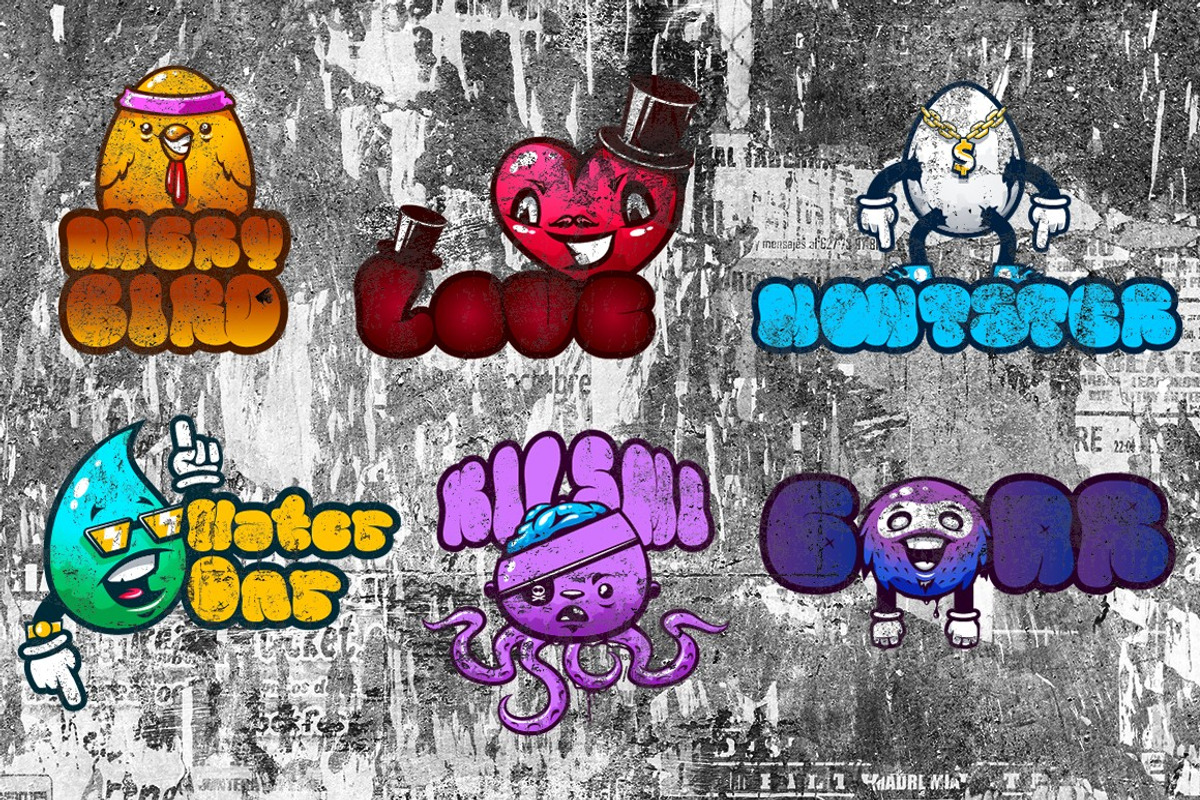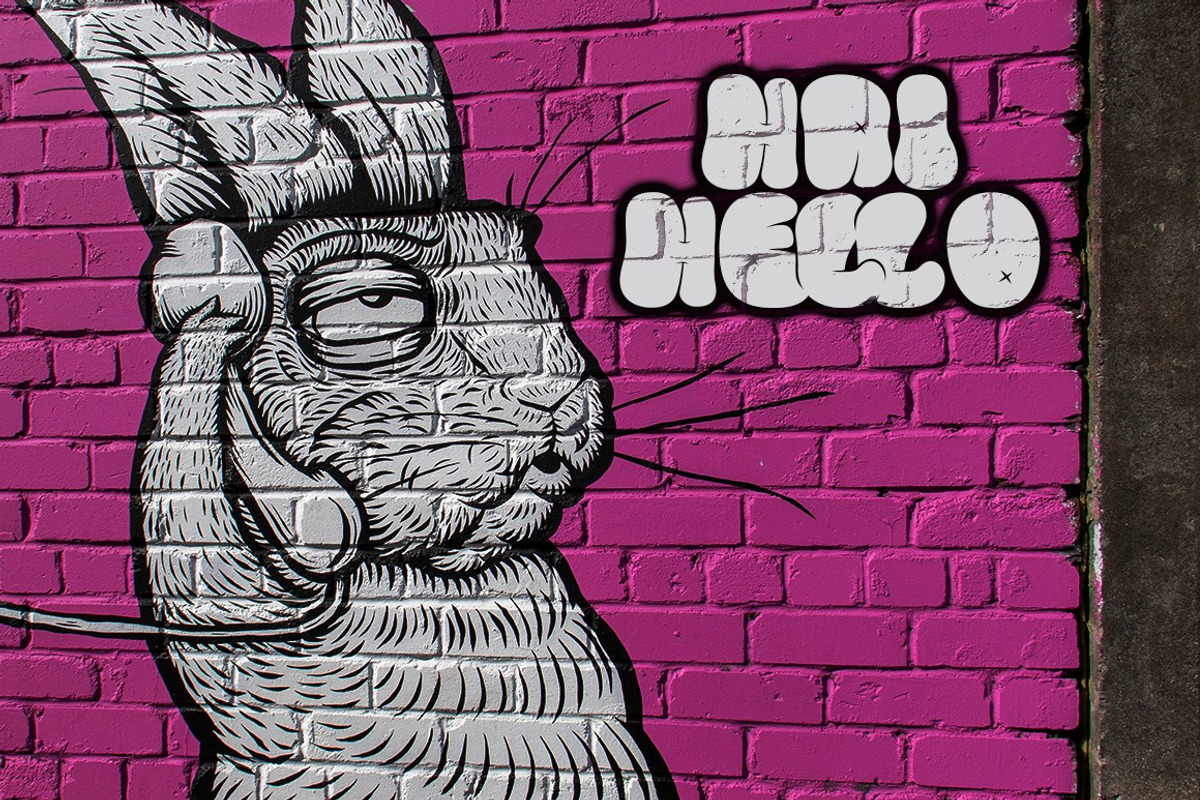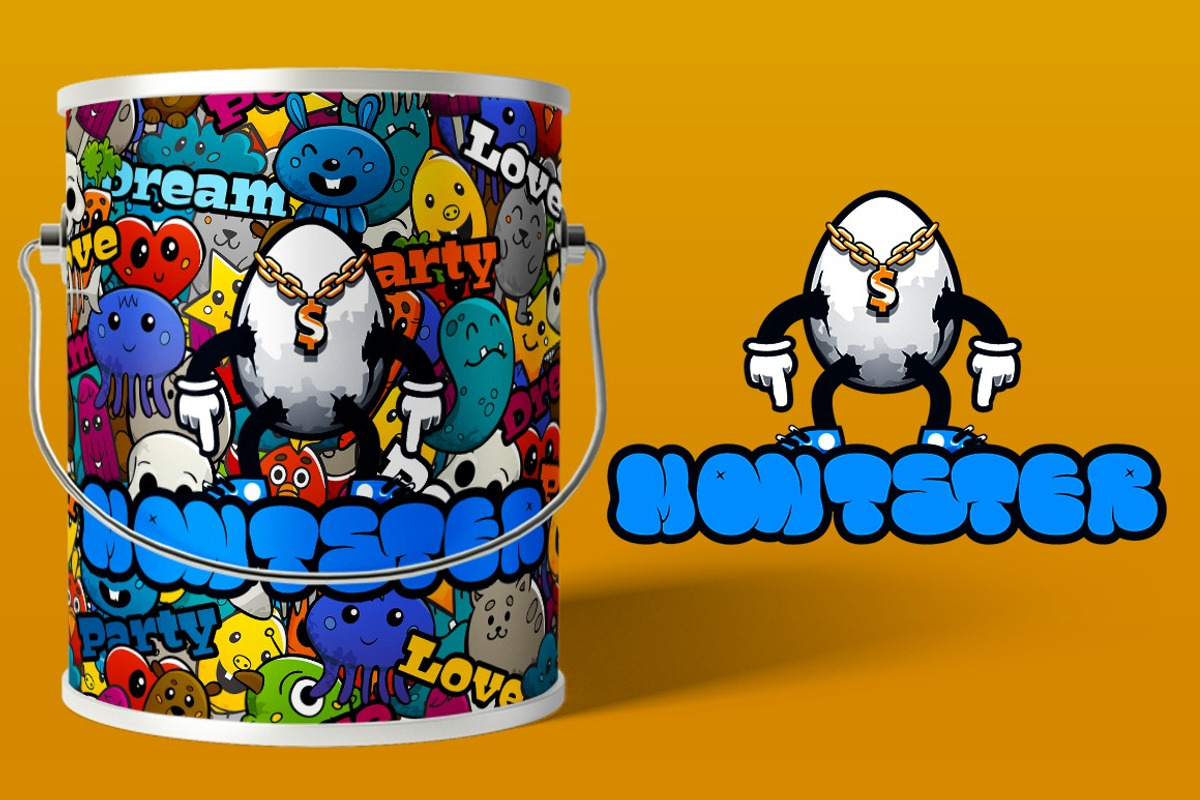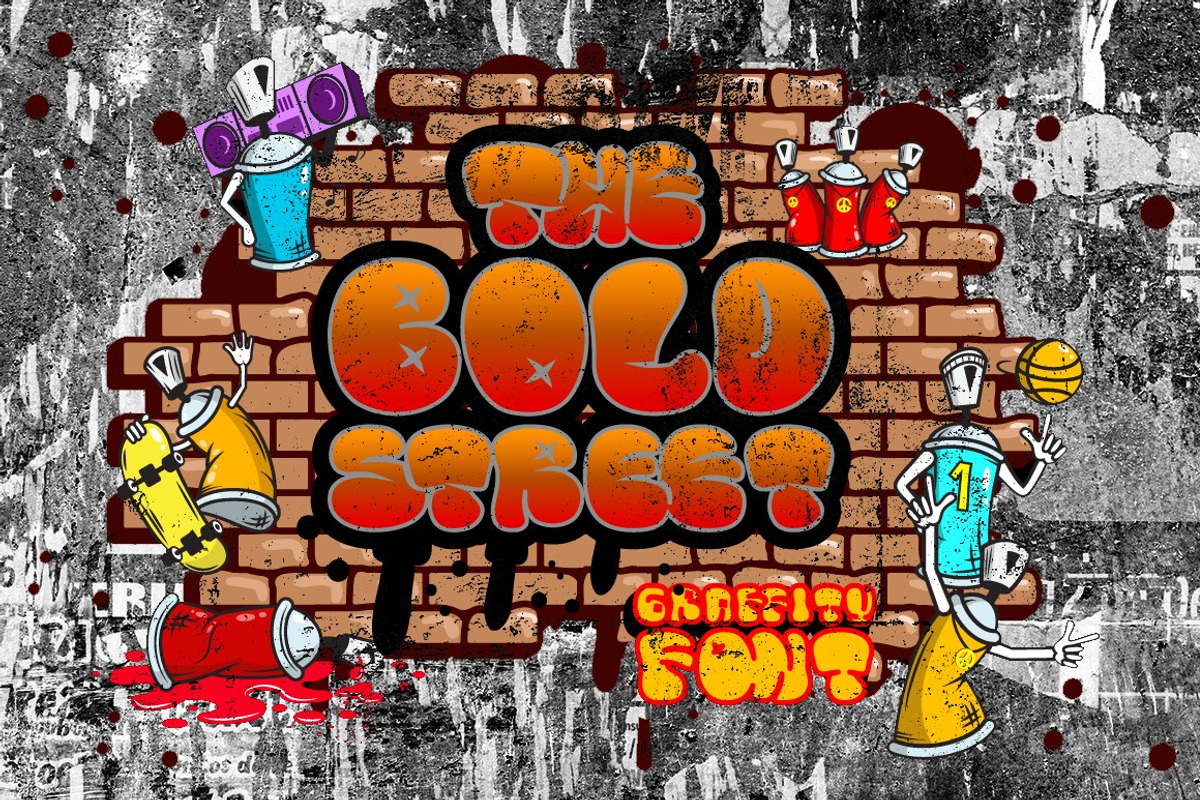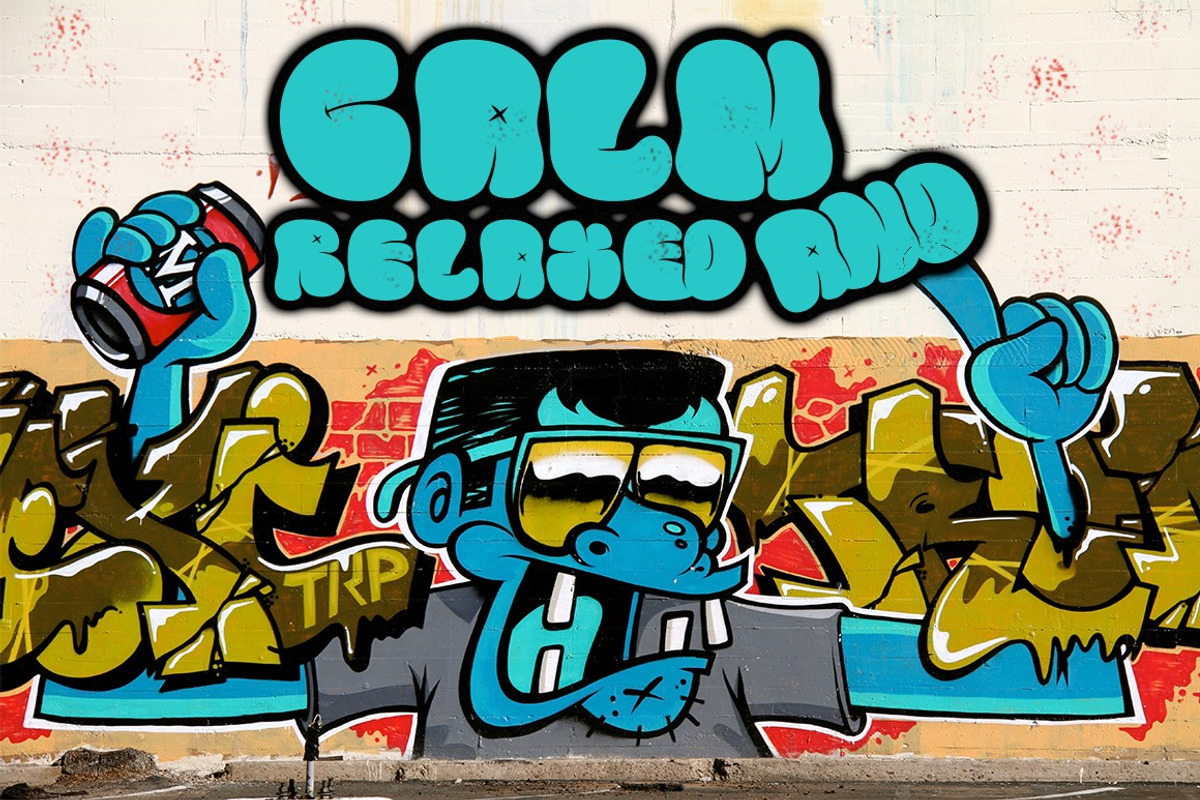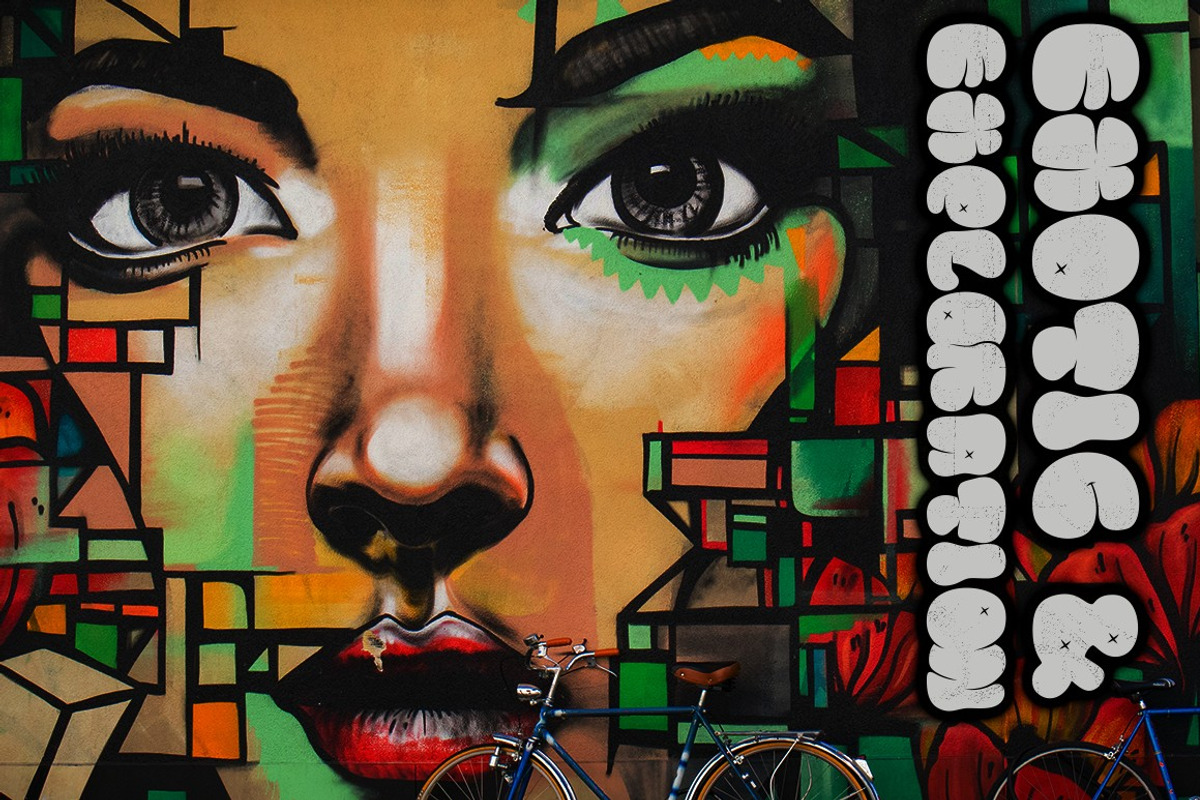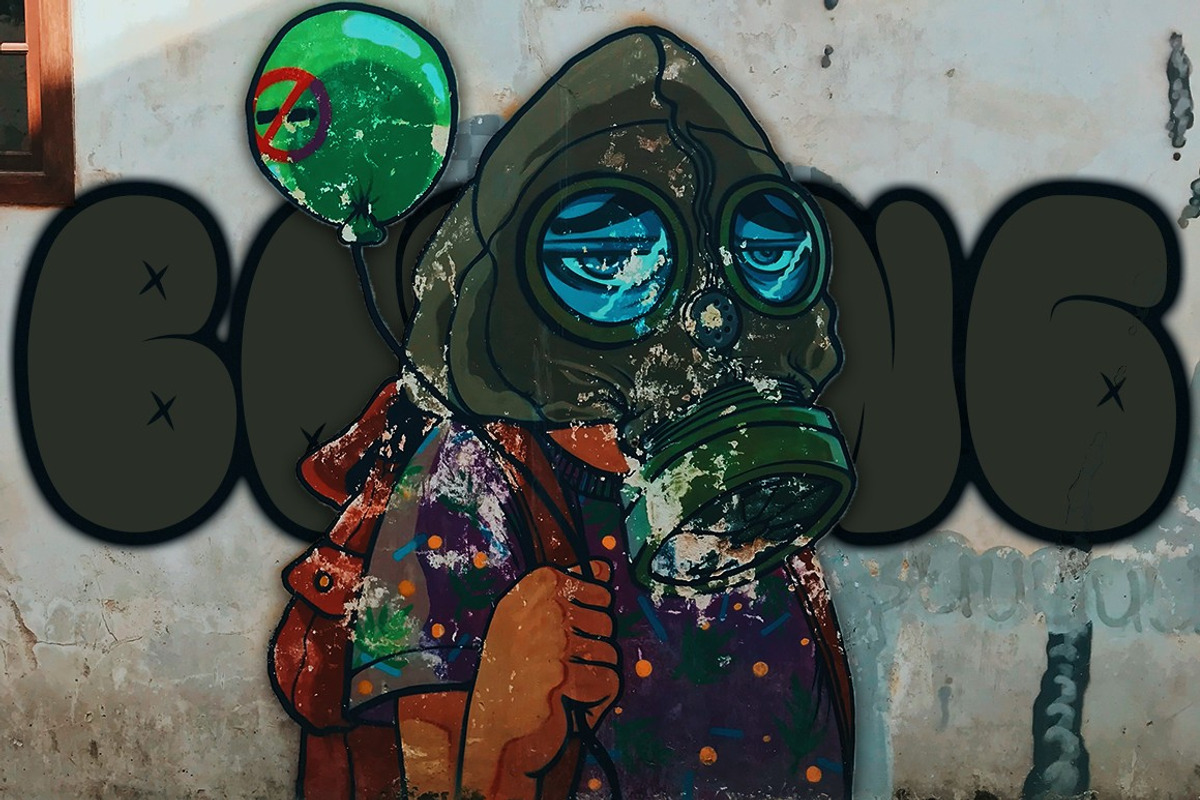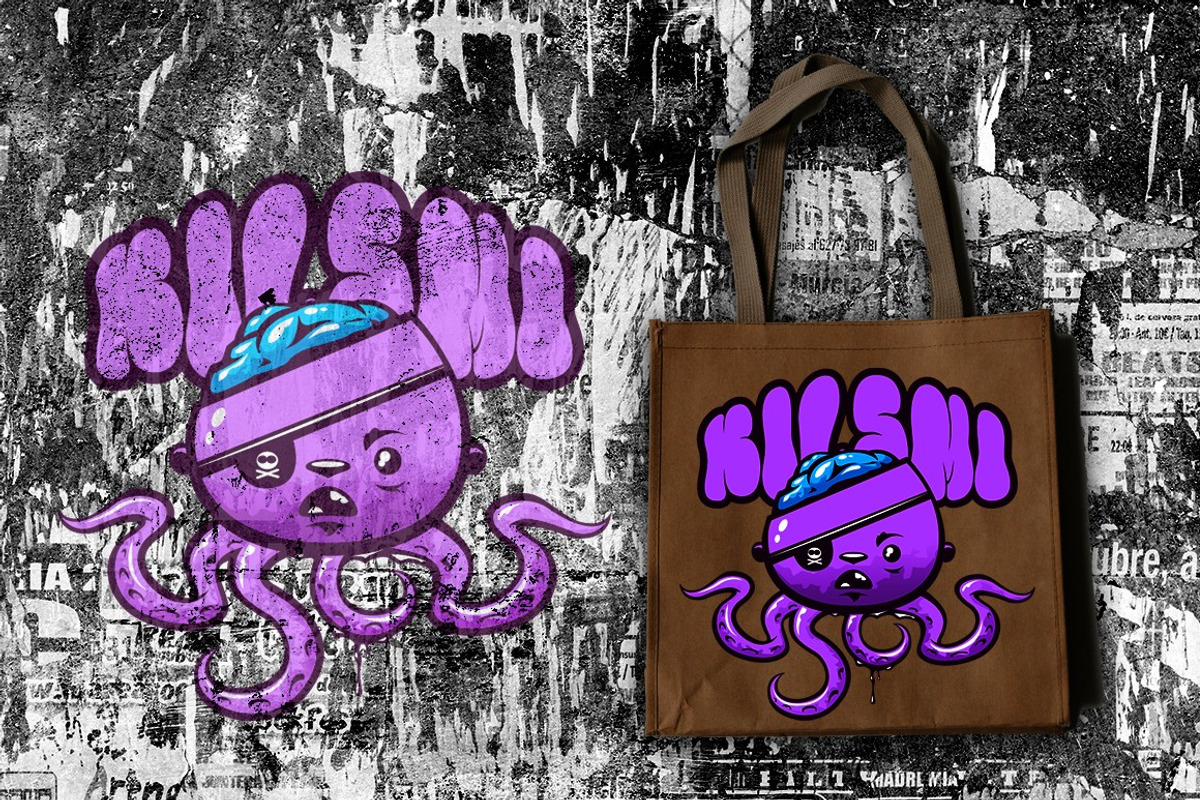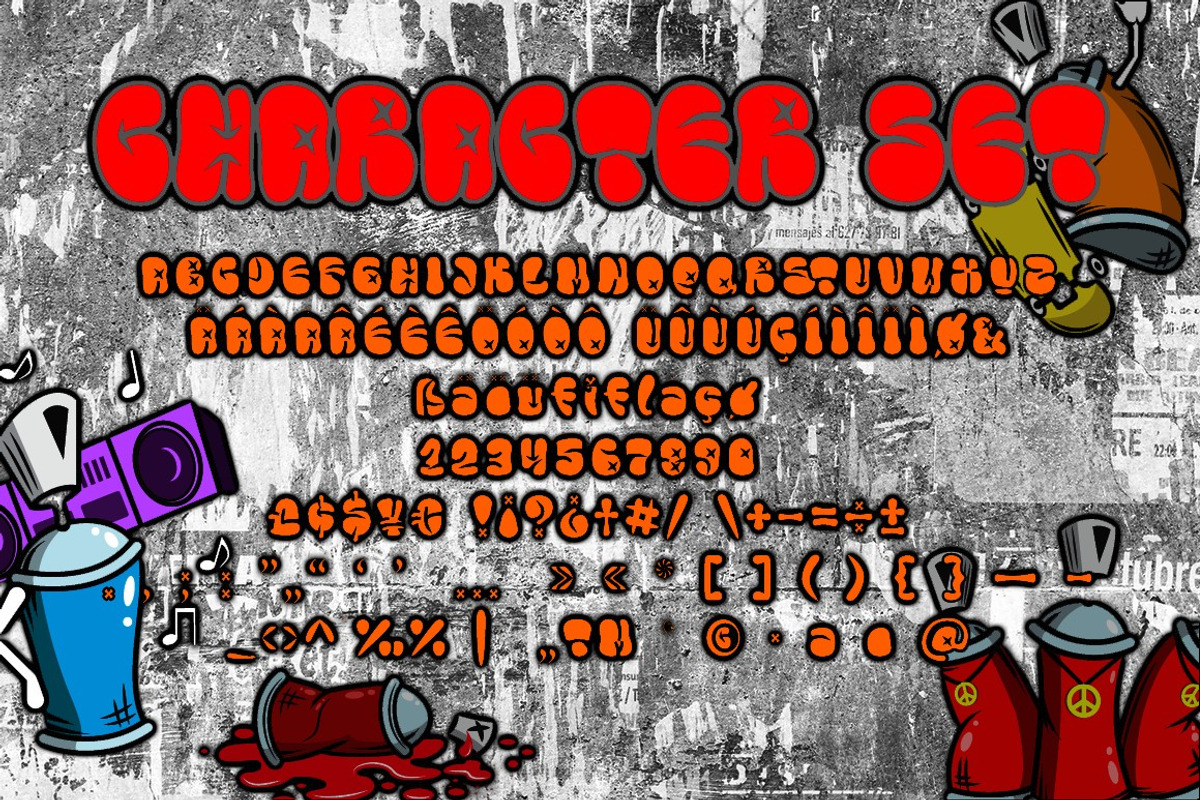
The Bold Street - Bold Graffiti Font
The Bold Street
Introducing The Bold Street. A Graffiti Style Font. Inspired by the graffiti art on the city streets, so I made it into a font. So that it will make it easier for you to make graffiti writing or designs. There are 54 ligatures that will make this font even cooler. so enjoy it! Suitable for many design project, branding, packaging, logo, wall art, headline, template, banner, poster, and so much more! This font is also support multi language.
Comes with feature :
- Number, Punctuation And Symbols
- Multilanguage Support.